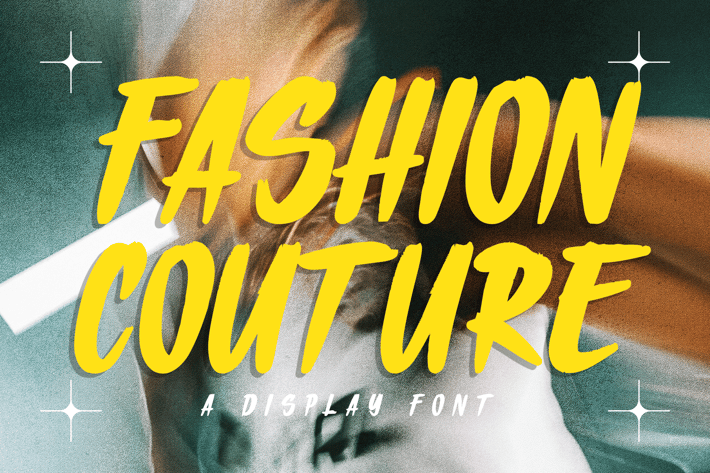
FASHION COUTURE MODERN MARKER Y2K DISPLAY FONT
FASHION COUTURE MODERN MARKER Y2K DISPLAY FONT a distinct, highly detailed. Marker Display Font.
It would make a great choice for exquisite retro-urban designs, business branding, logos, Apparel designs, and more.